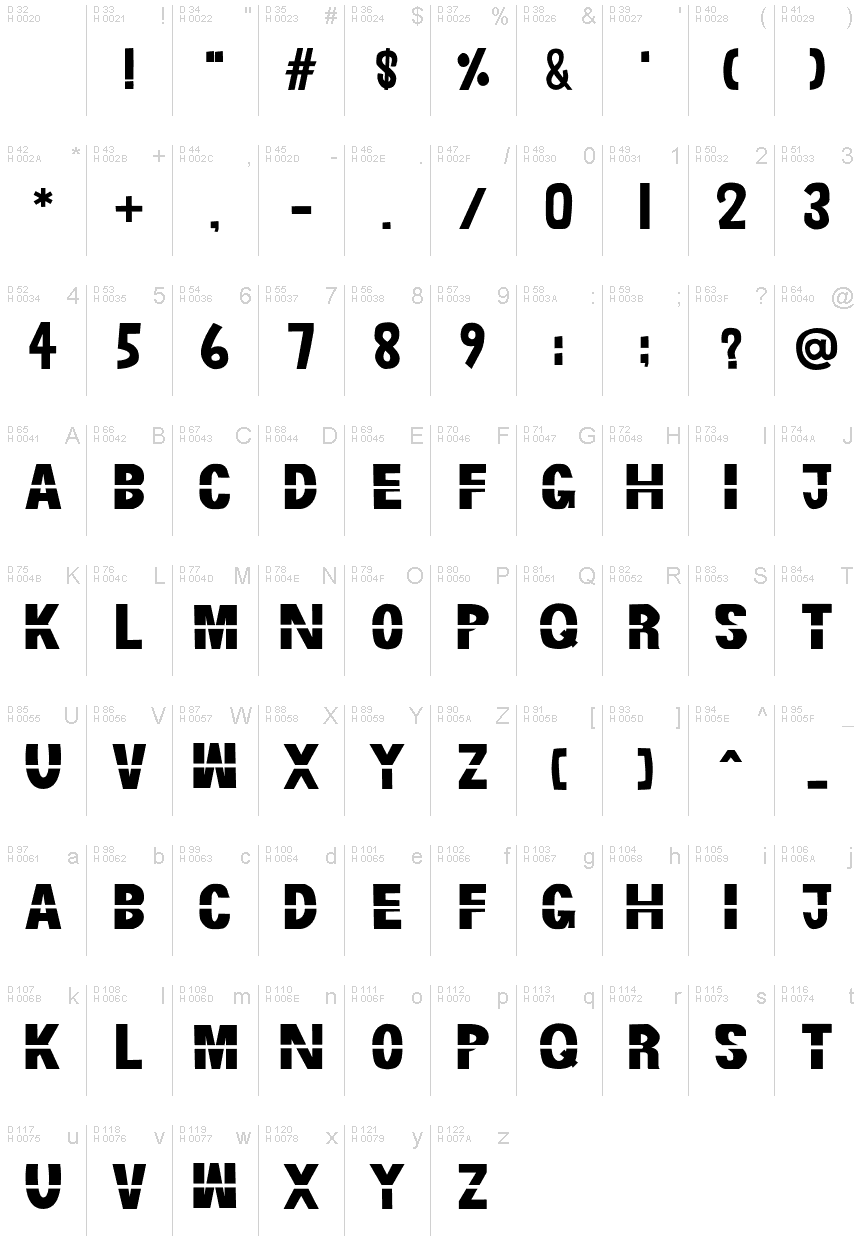
BlackLivesMatterStatenIsl
On 6/5/20, a message of solidarity for #BlackLivesMatter was painted in front of the White House. Since then, many other cities across the U.S and even some abroad have followed suit. Unfortunately, as we saw in Martinez, CA over the weekend, people will go through great lengths to spew their hatred by vandalizing these city approved murals.
So, we preserved the message by turning physical murals into digital fonts: Black Lives Matter Font.
This font pack will be continuously updated, it currently includes fonts from the Washington, D.C., Oakland, Staten Island, and Martinez murals.
Black Lives Matter Staten Isl
BLACK LIVES MATTER. On 6/5/20 a message of solidarity was painted on the streets of Washington D.C by city officials. 5 days later they took it down. We created this font because this message must live on. KEEP WRITING LETTERS. KEEP SPEAKING OUT. KEEP CHALLENGING THE SYSTEM.